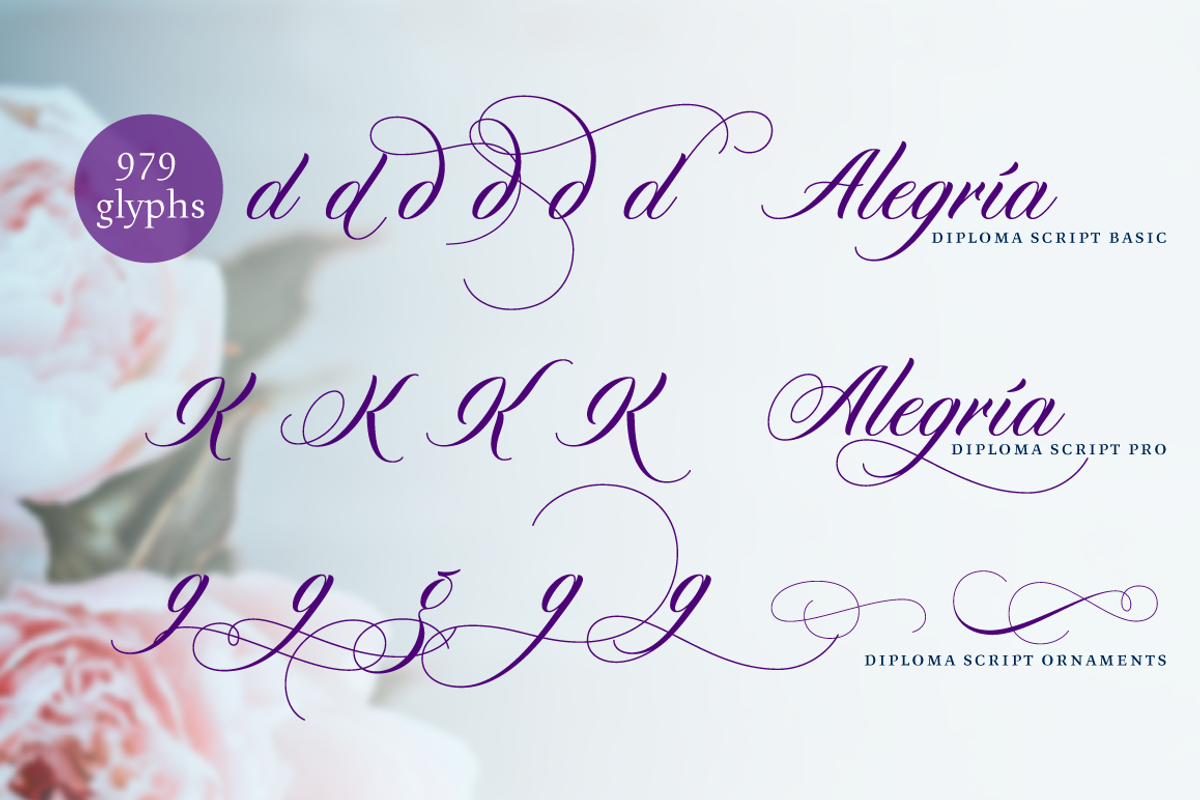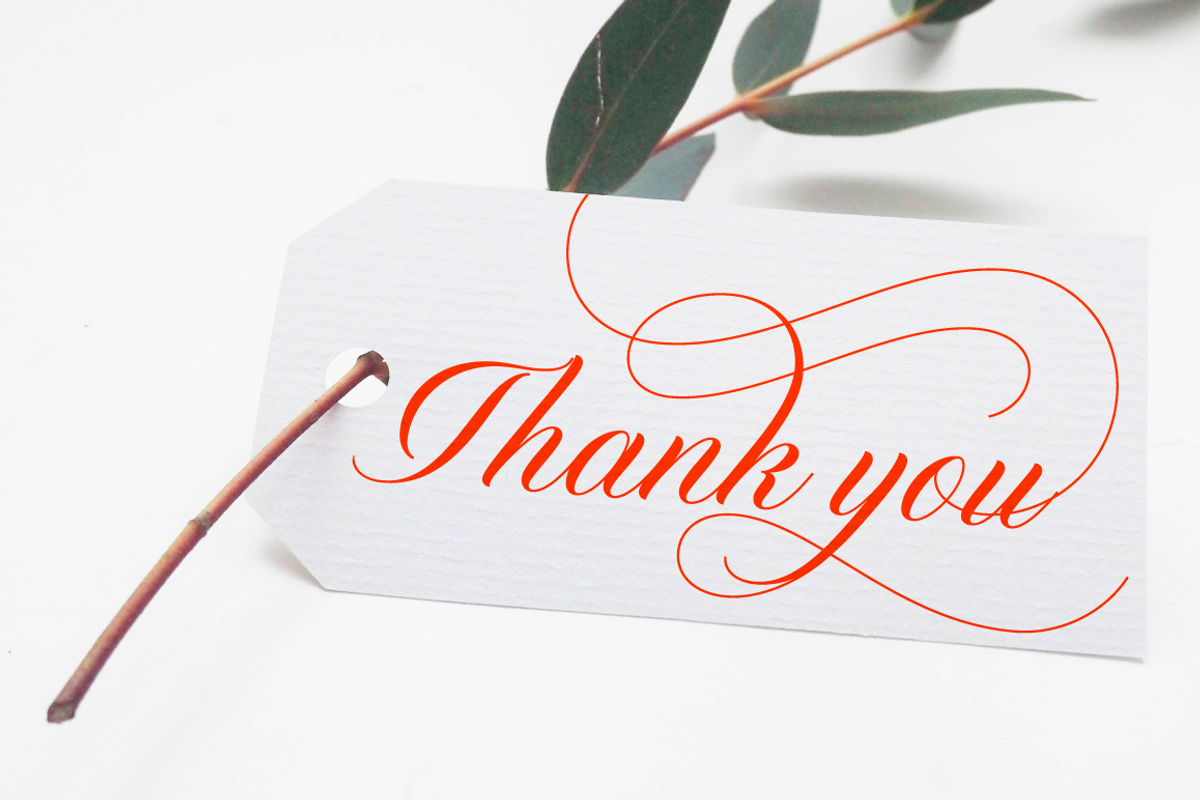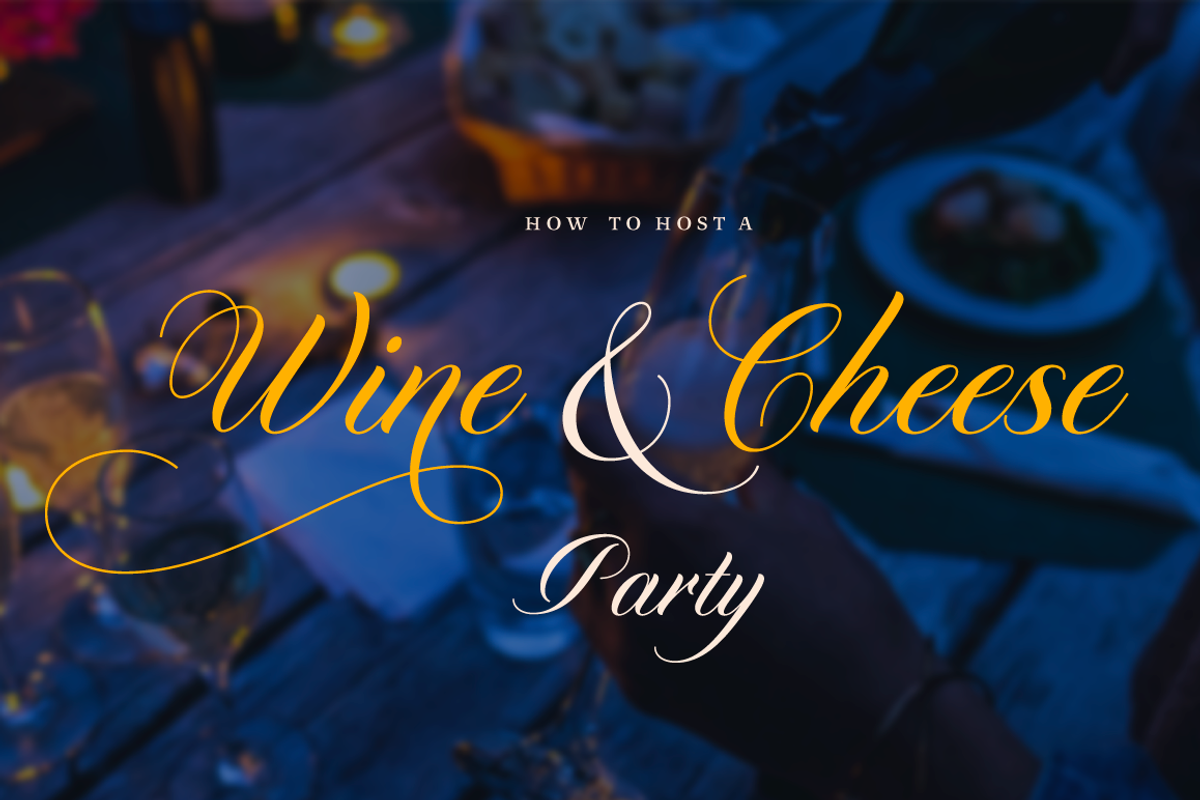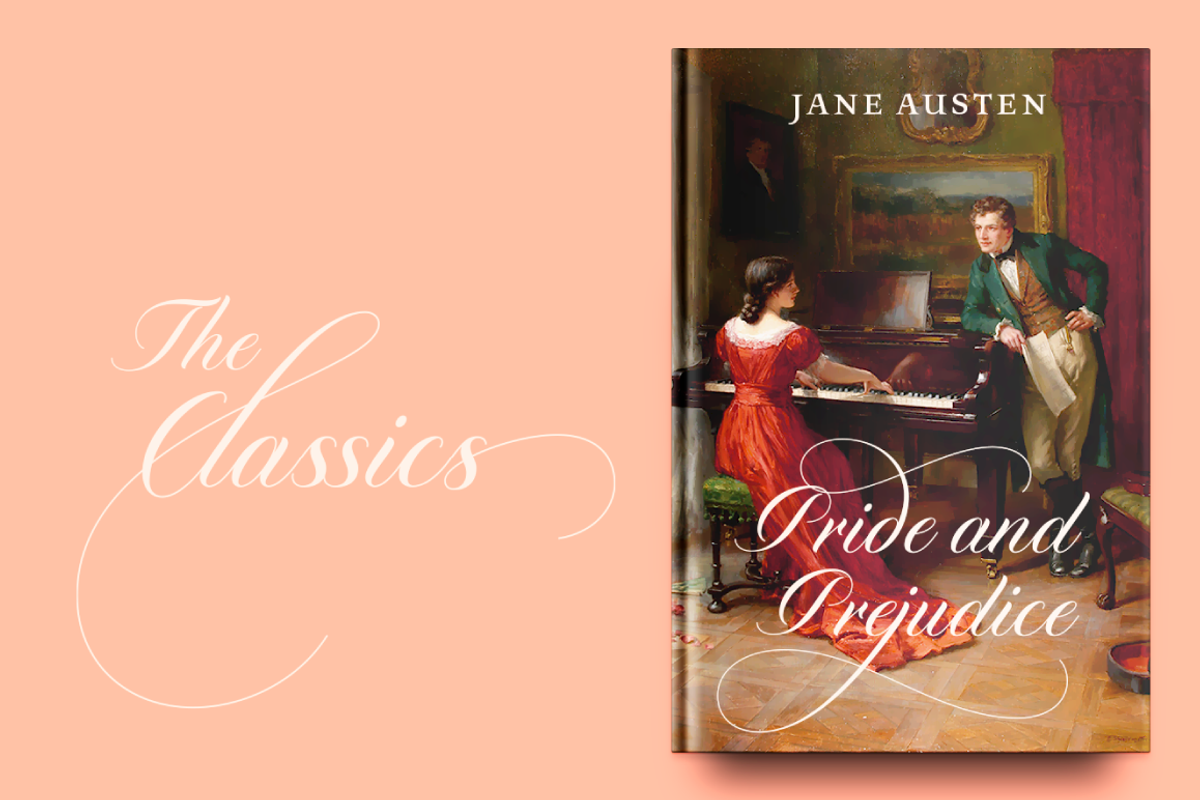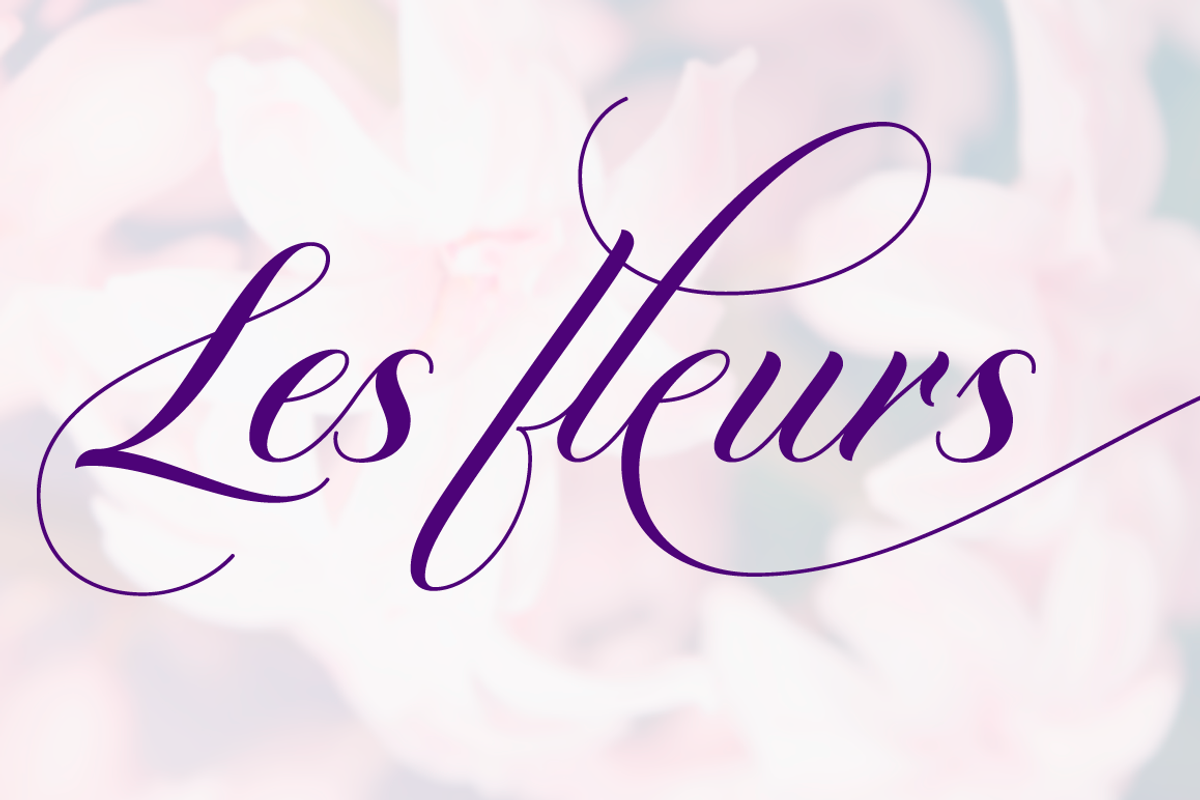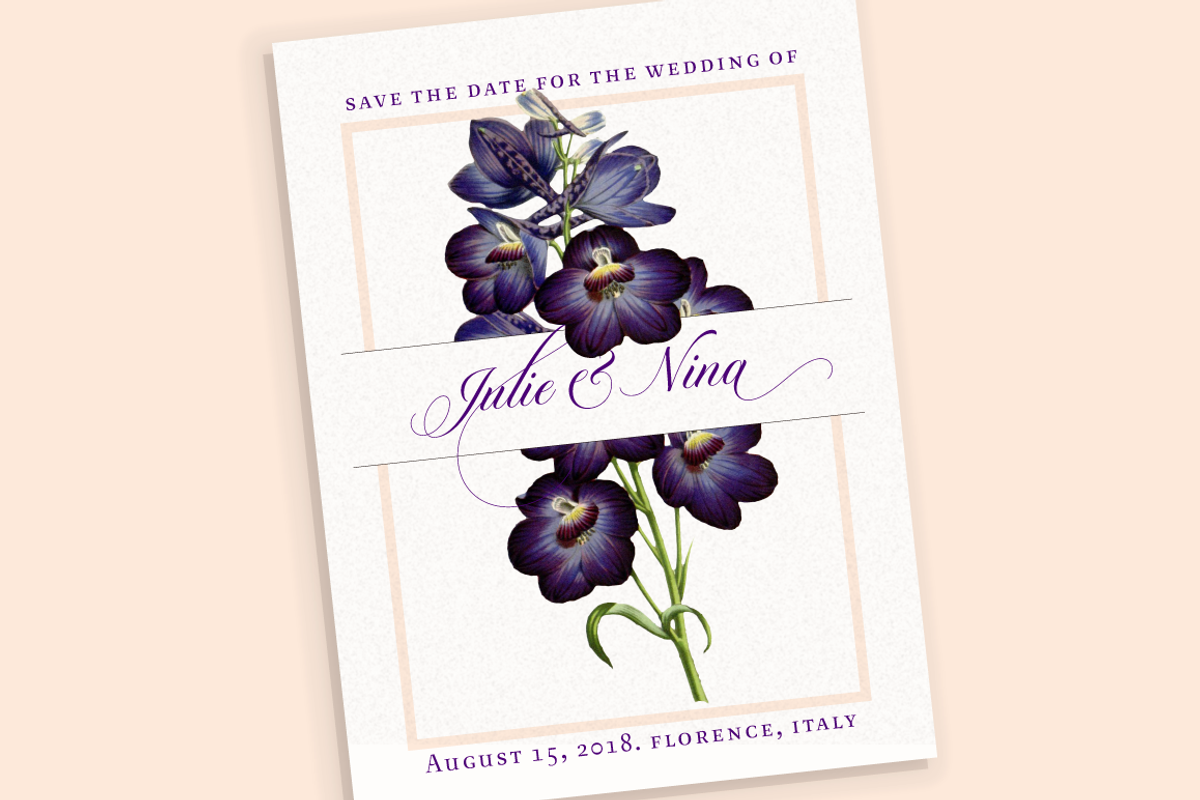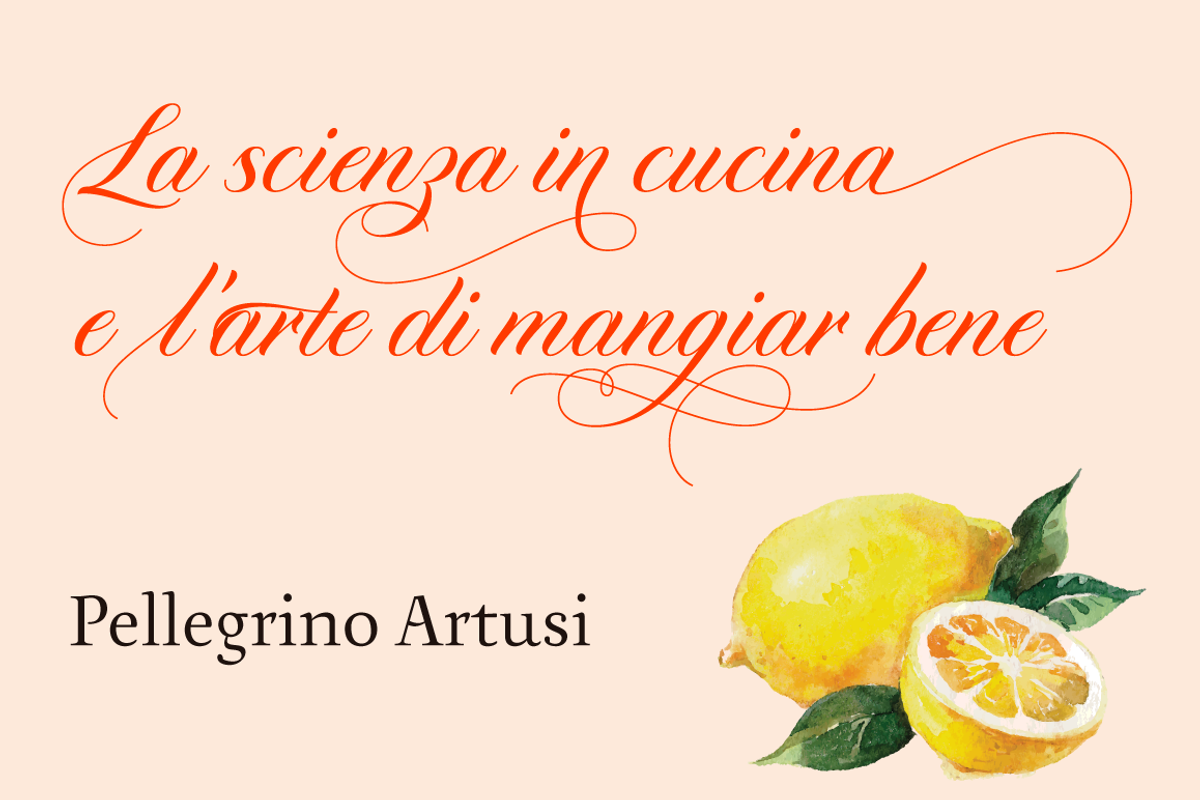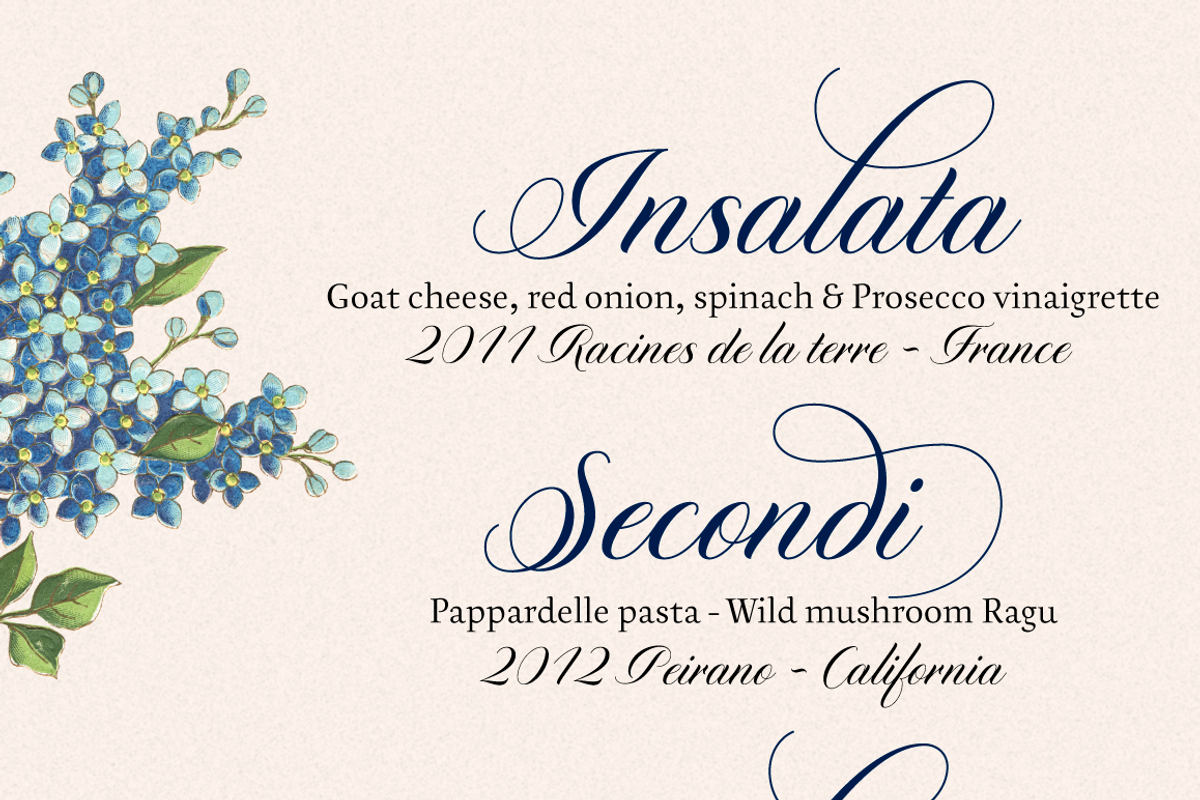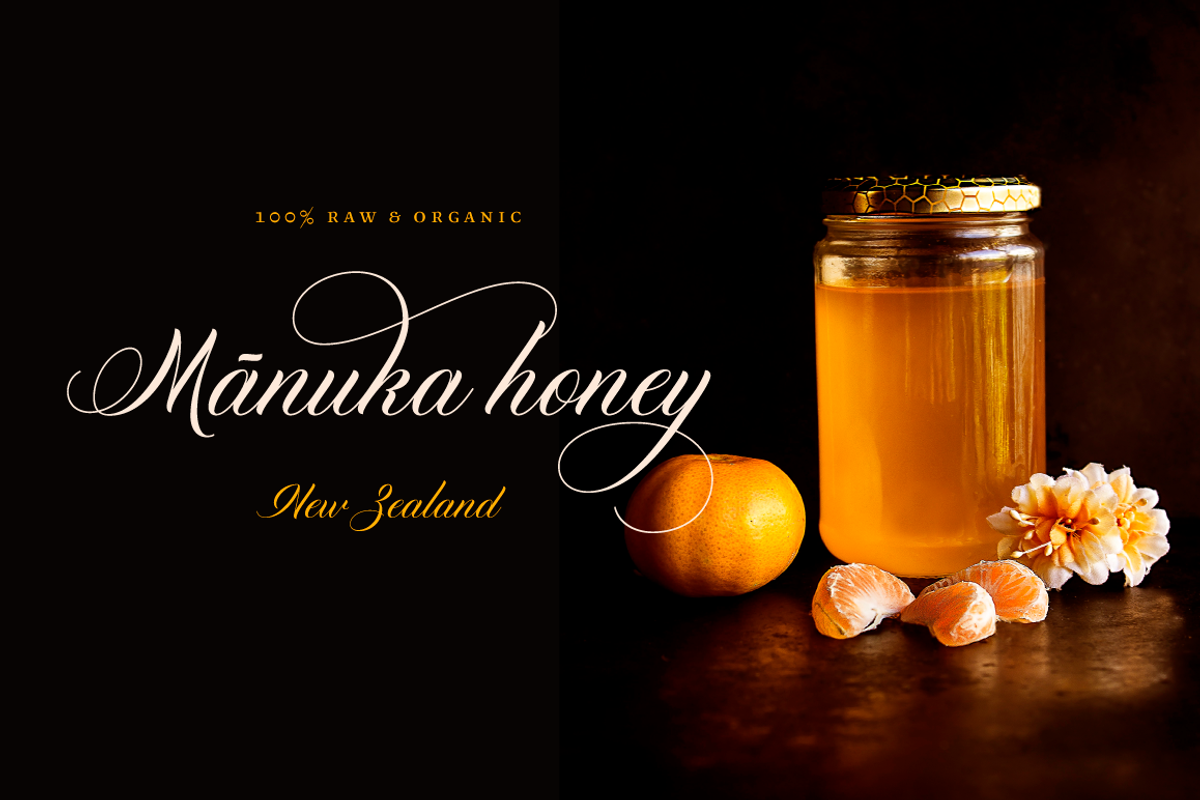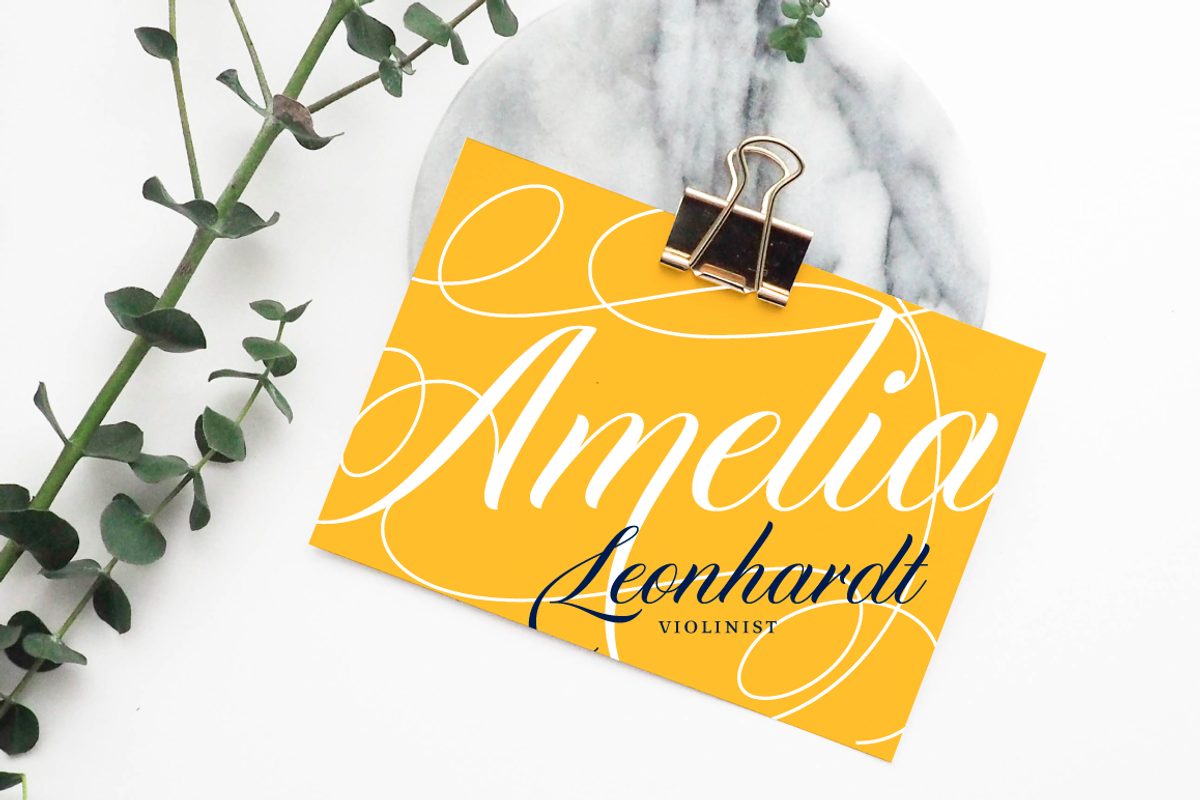
Diploma Script
Diploma Script was born from merging classic calligraphy and contemporary tools. The Copperplate style, which served as baseline for the development of the font, mixes harmoniously with brush pen drawing techniques that give Diploma Script a modern touch. The typeface provides elegance and legibility, while preserving characteristic shapes and strokes from the Copperplate style.
Diploma Script covers a wide range of uses ranging from titles, logotypes, invitation cards, certificates and labels to small-sized texts. The family comes with initial, medial and terminal alternates that allow user to emphasize specific words. Figures, fractions and symbols are also included.
Diploma Script includes a set containing more than 900 characters that support over 200 different languages.